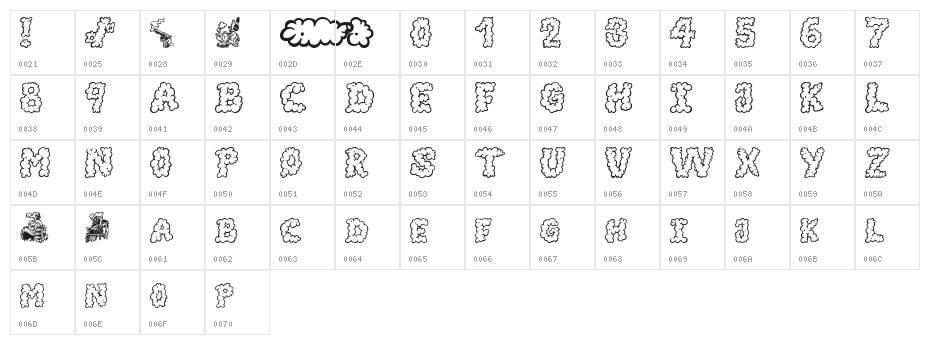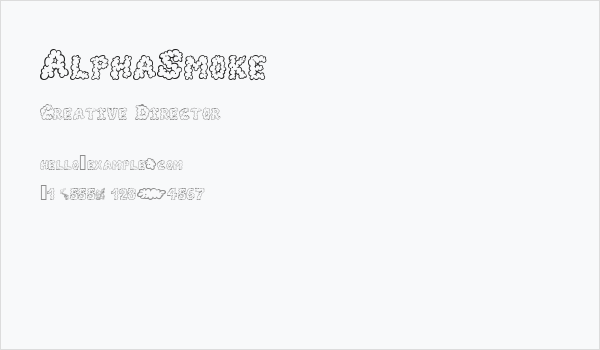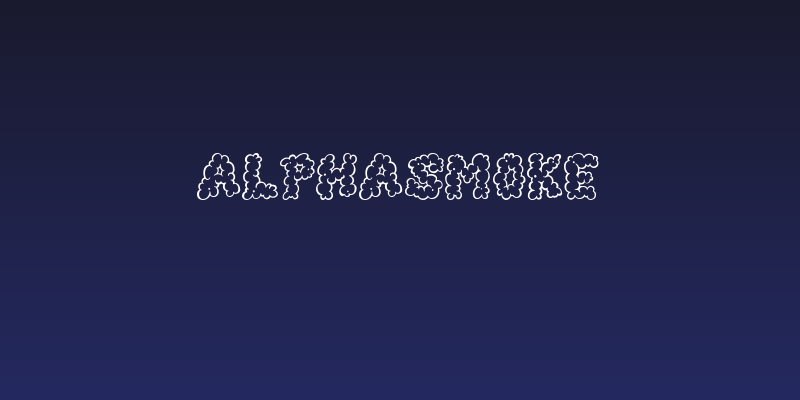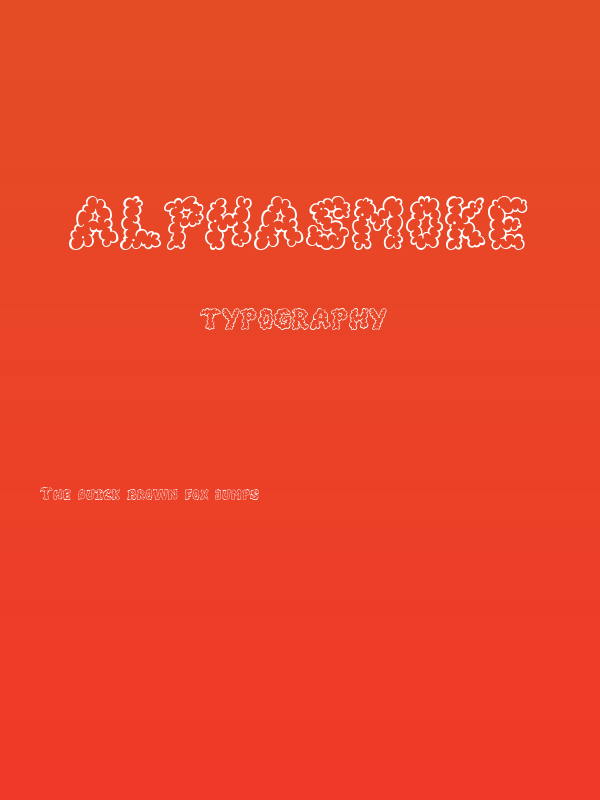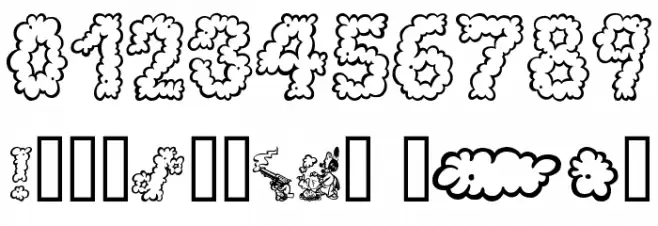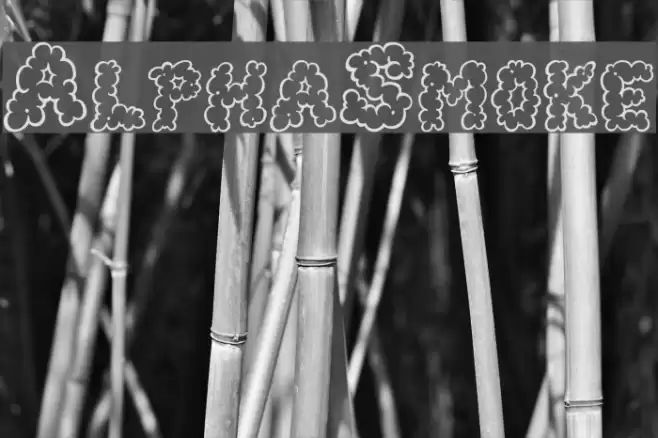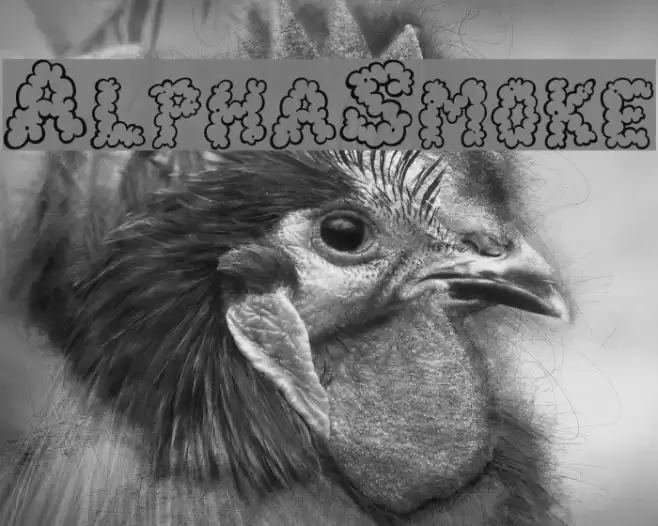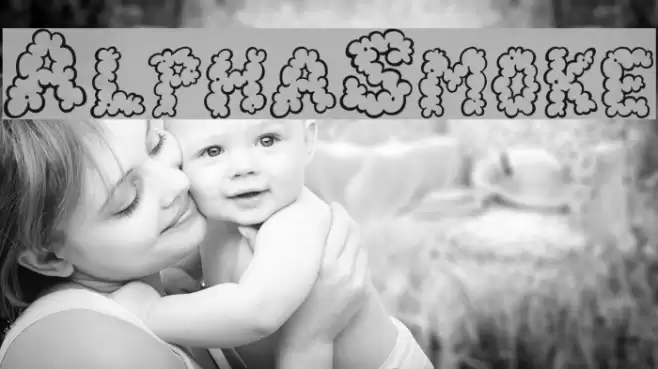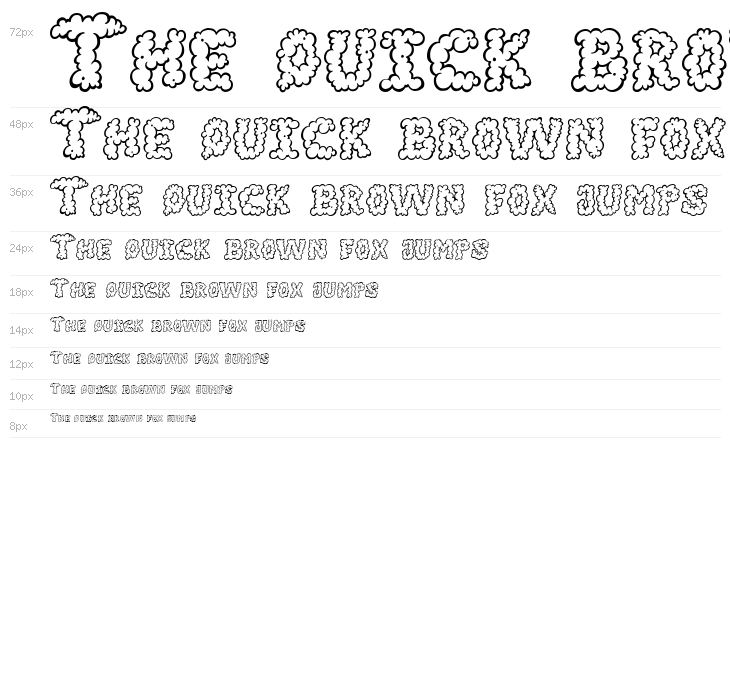
AlphaSmoke Font
AlphaSmoke Description
This playful and whimsical font features characters that resemble fluffy clouds or smoke puffs, giving it a unique and airy appearance. The letters are bold and rounded, with a consistent outline that adds to the cartoonish style. Each character is distinct, yet they all share the same bubbly aesthetic, making the font cohesive and visually engaging. The numbers and special characters follow the same design principles, ensuring uniformity across all elements. This font is perfect for projects that require a fun and lighthearted touch, such as children's books, party invitations, or playful branding.
| Overall Style | Playful, Whimsical |
| Proposed Projects | Ideal for children's books, playful branding, party invitations, and creative posters. |